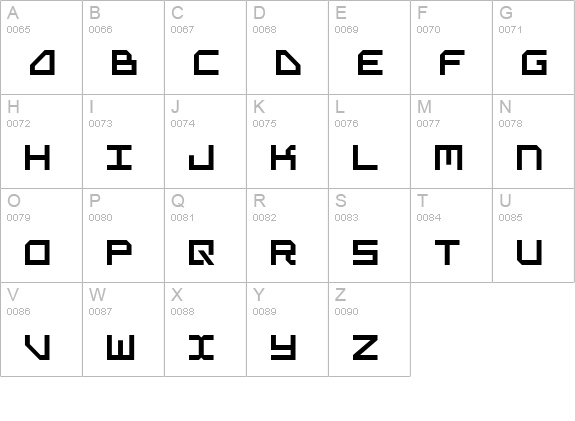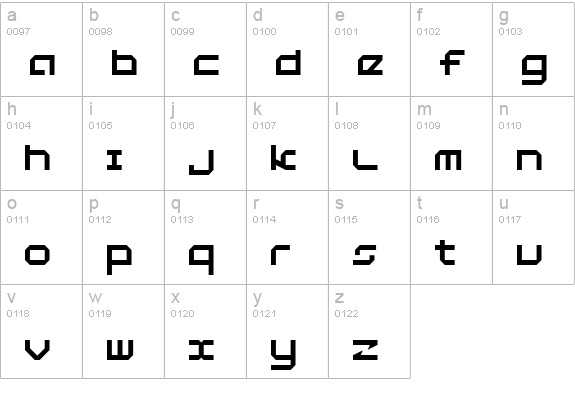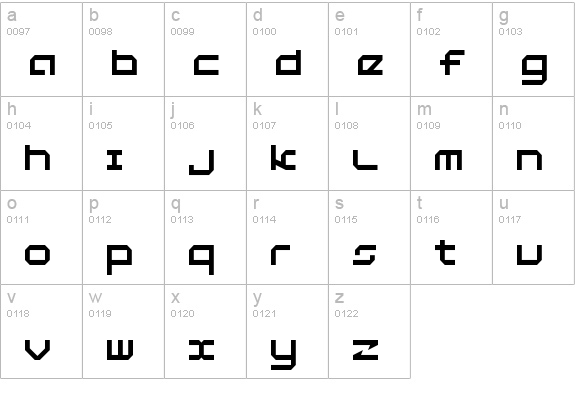
The 5th Agent font is a sleek and modern typeface that exudes sophistication and style. With its clean lines and sharp angles, this font is perfect for making a bold statement in any design project. Whether you're creating a professional presentation or designing a sleek website, the 5th Agent font will add a touch of elegance to your work. Best of all, the 5th Agent font is completely free to download at FontsMarket.com. This means you can easily access this stylish font and use it in all your creative projects without breaking the bank. So why wait? Download the 5th Agent font today and take your designs to the next level!